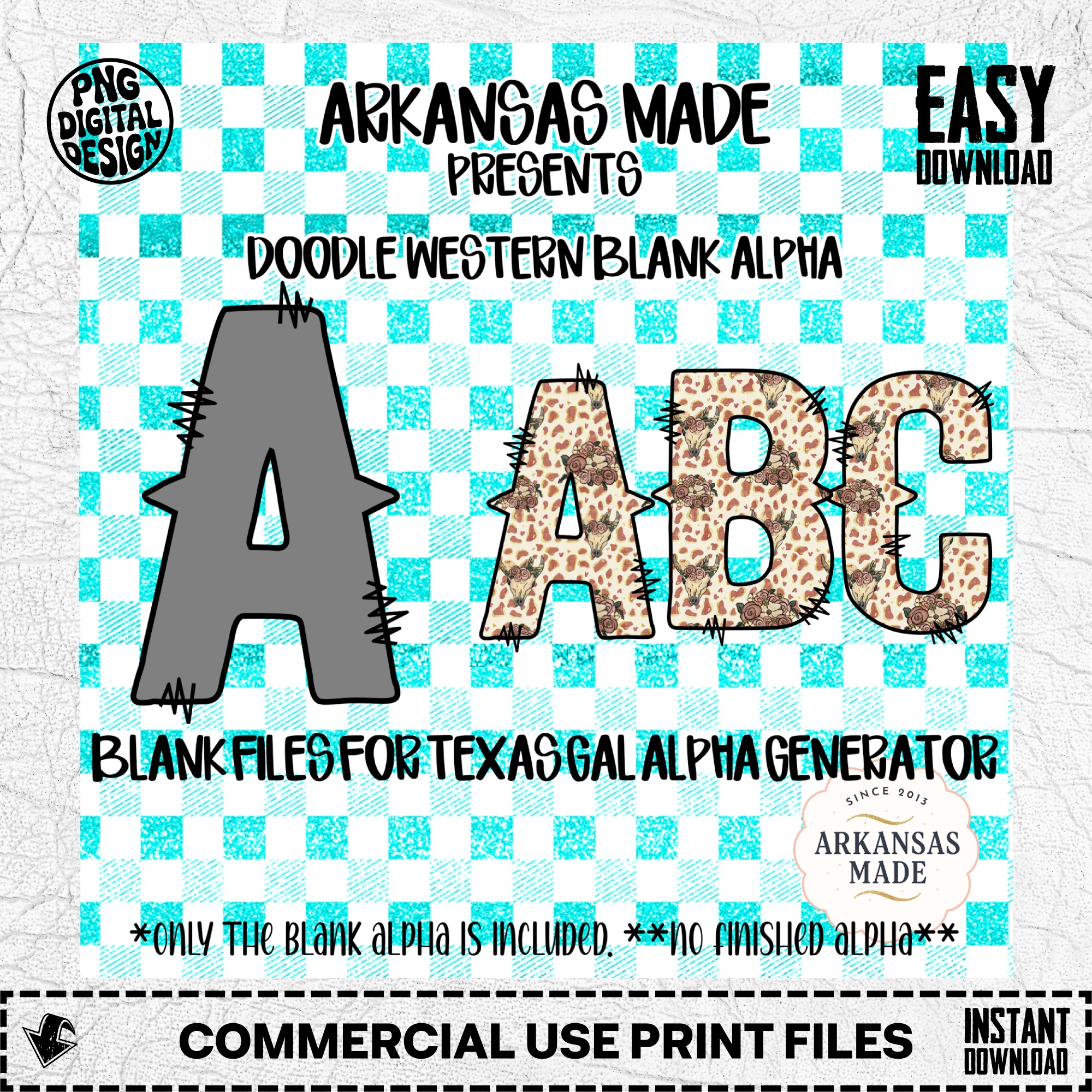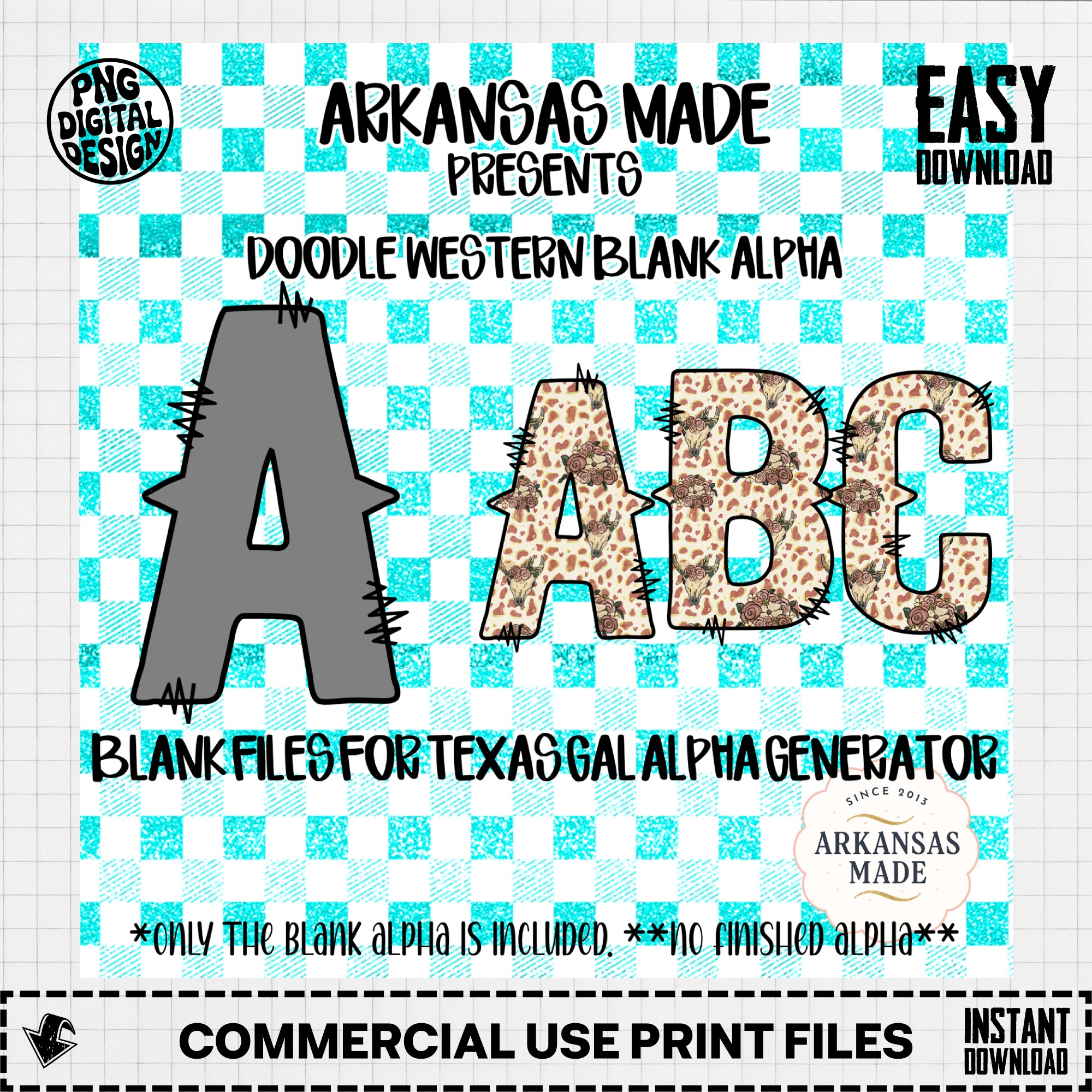
Unleash your creativity with our Doodle Western Blank Alpha digital download, perfect for custom sublimation projects. This versatile blank alpha is designed for the Texas Gal Alpha Generator, providing a unique rustic and doodle-stitched outline for all your personalized creations. Fill these blank letters with your favorite patterns and textures to create stunning designs for tshirts, mugs, signs, and more. Ideal for crafters looking for a unique, western-themed alphabet to customize.
– Blank alpha template for easy customization.